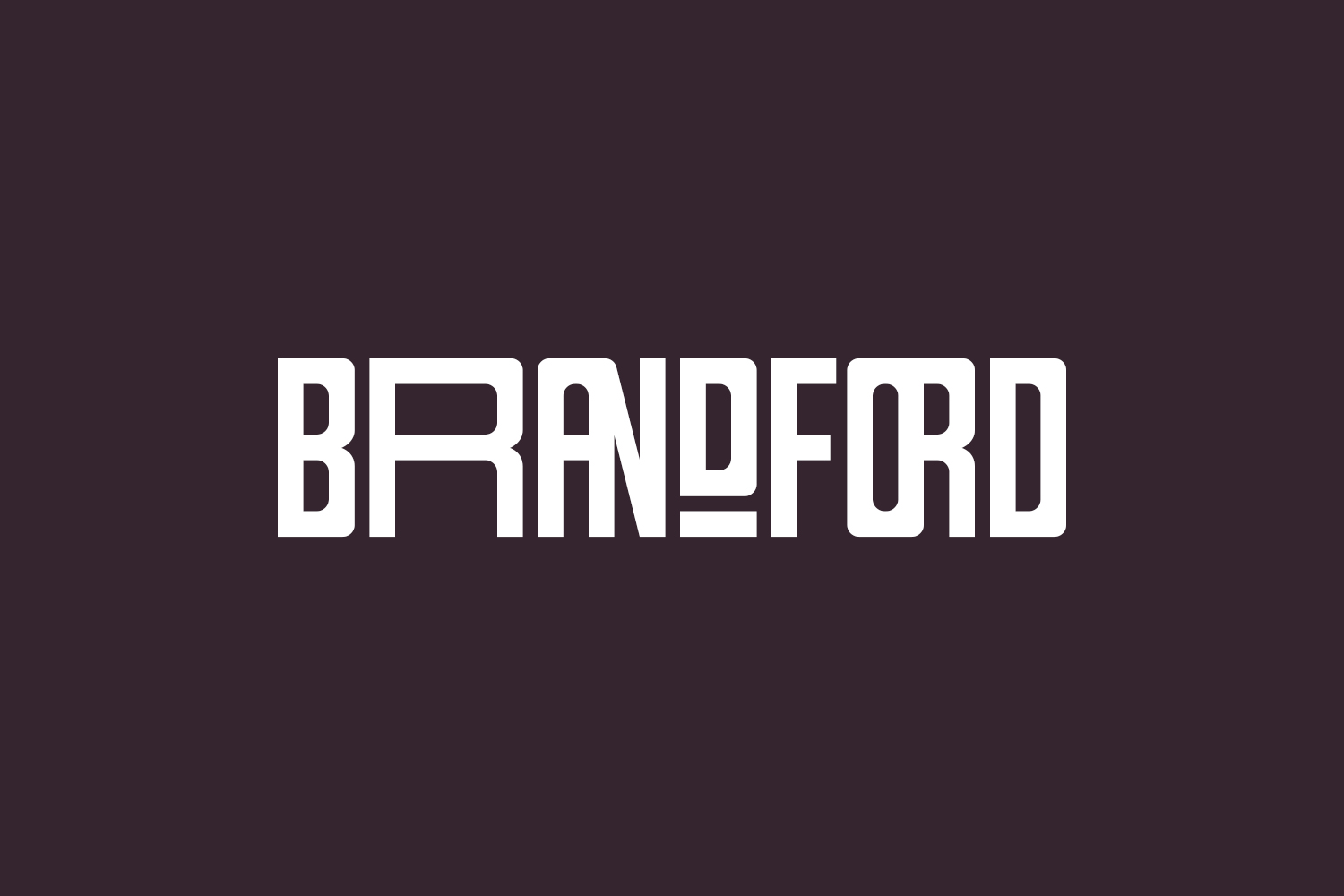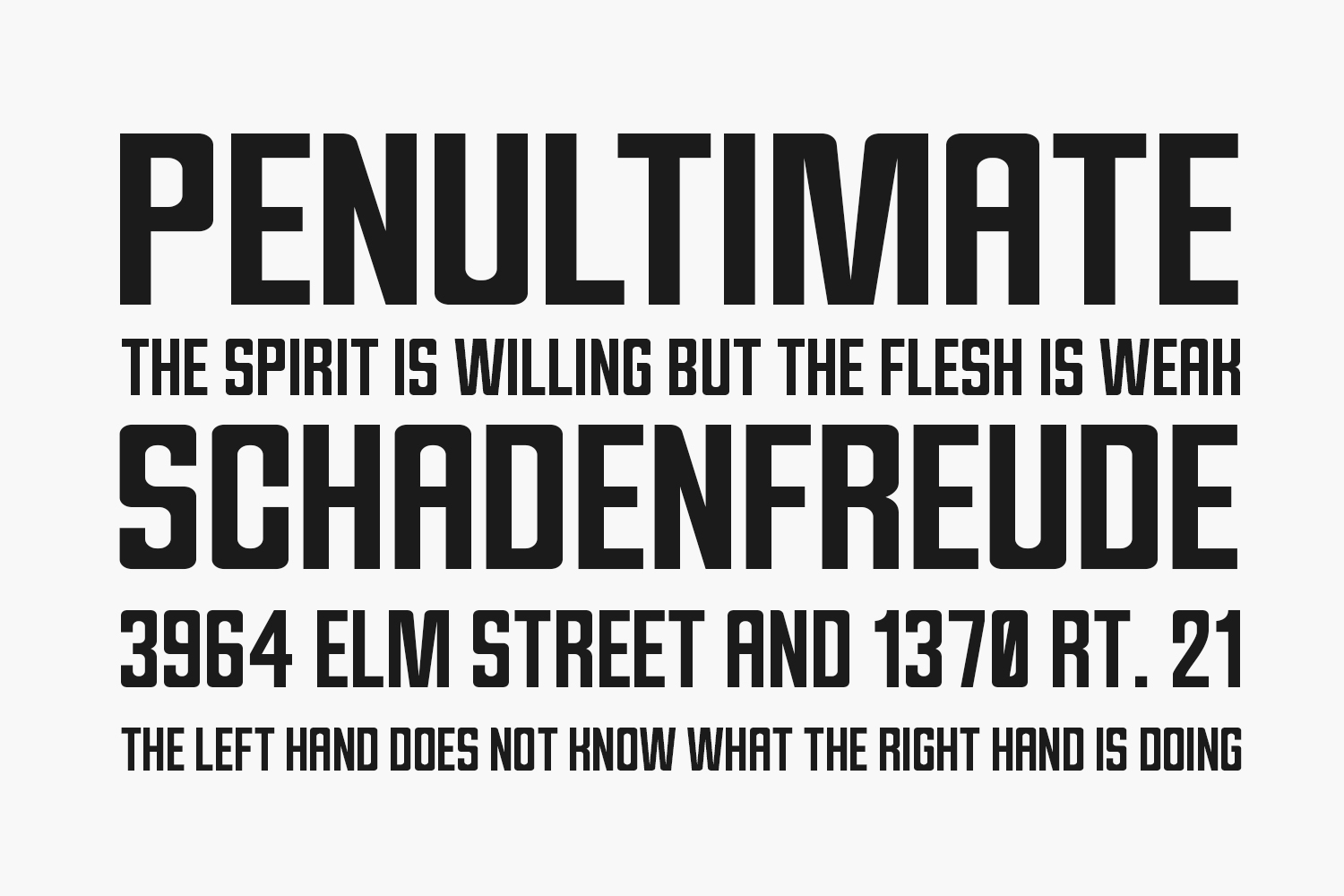
Brandford Free Font presents a sleek sans-serif font, enriched with ligatures and alternate characters. Meticulously designed to shine in both large and small point sizes, it retains its charm effortlessly. Tailored for crafting distinctive logos and brands, impactful packaging, commanding website headers, and a plethora of other applications. Packed with an array of ligatures, alternates, and additional features, empowering you to elevate your project above the ordinary. Download the font for free if you need it for personal use or purchase the full version for commercial use.